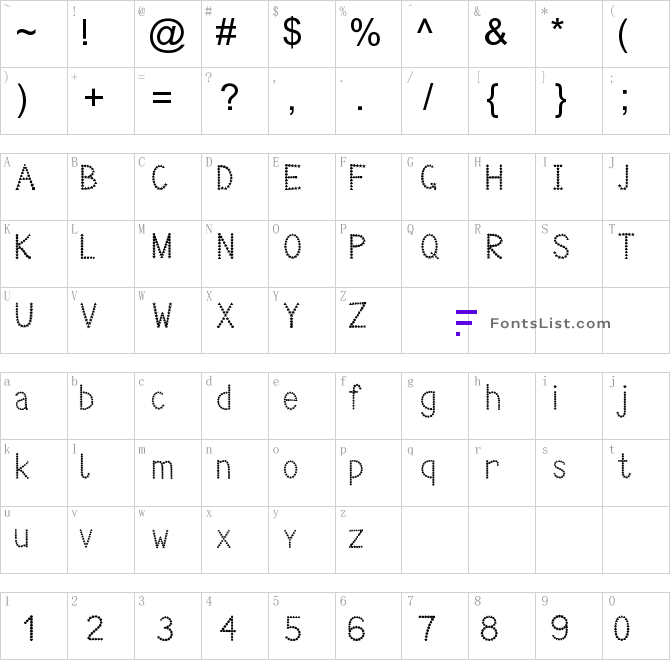
- Font Name:Decor Excellent_viper78_2012
Arial_ver_viper78_7_august_2012-e-O-.ttf is a very beautiful artistic font, Arial_ver_viper78_7_august_2012-e-O-.ttf is widely used in the design and printing of various books and pictures,Arial_ver_viper78_7_august_2012-e-O-.ttf has a strong visual impact,Arial_ver_viper78_7_august_2012-e-O-.ttf is a commonly used font in newspapers, magazines and books, and is used in posters, e-commerce Poster design, store design, logo design, font design and other fields.Arial_ver_viper78_7_august_2012-e-O-.